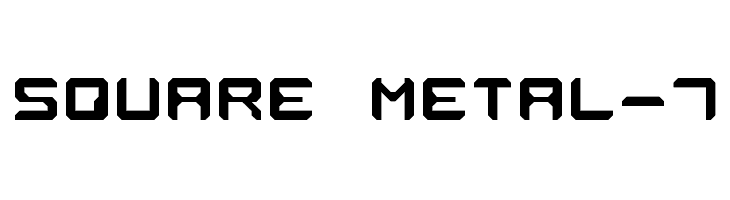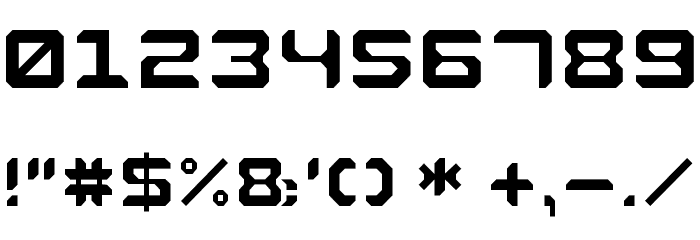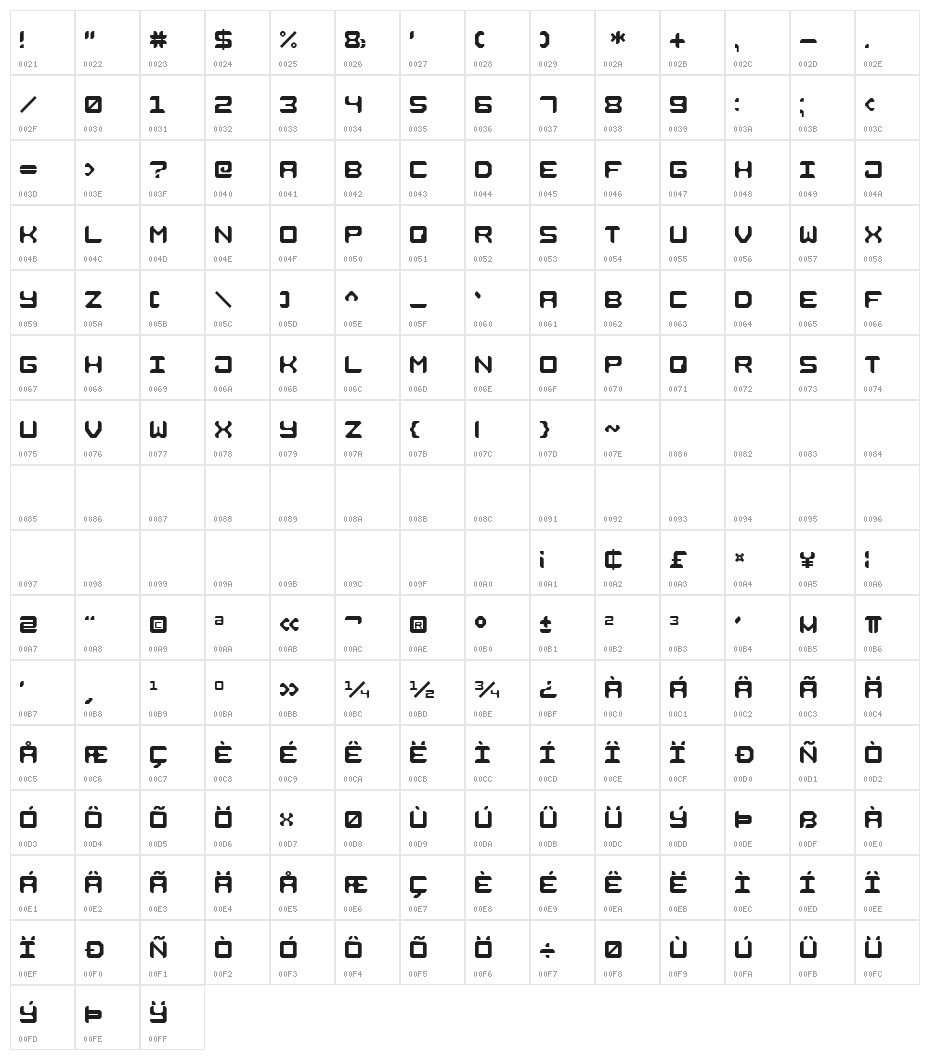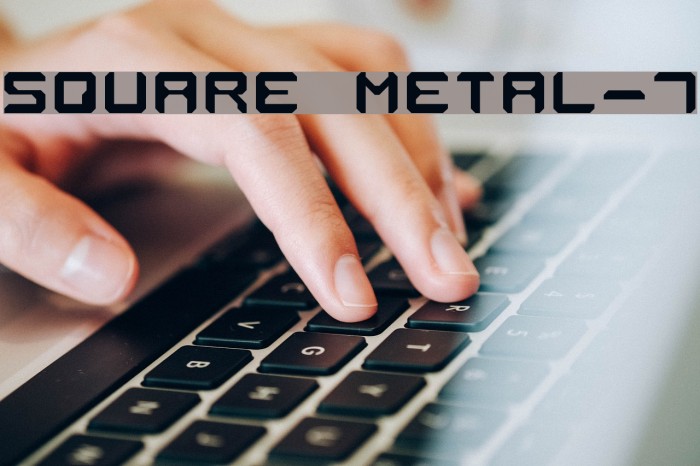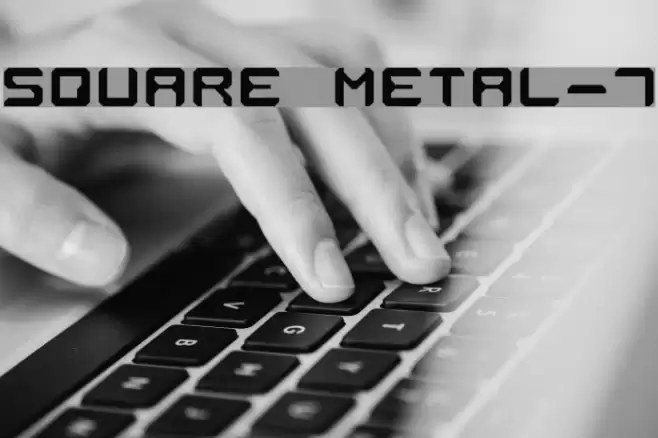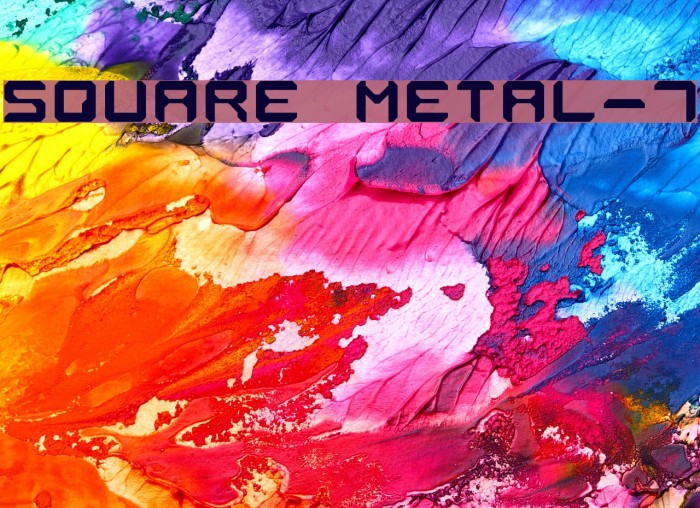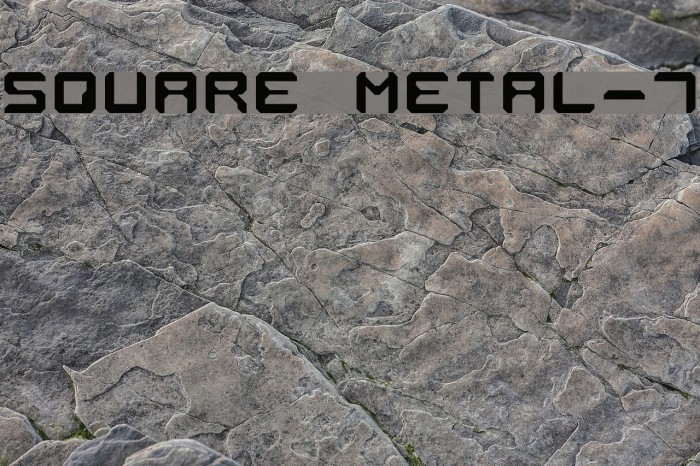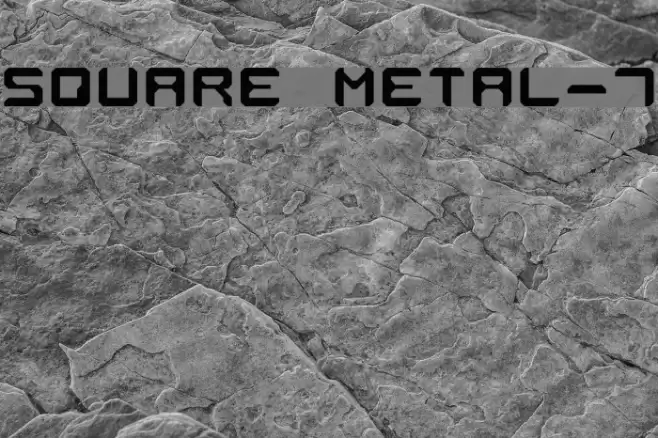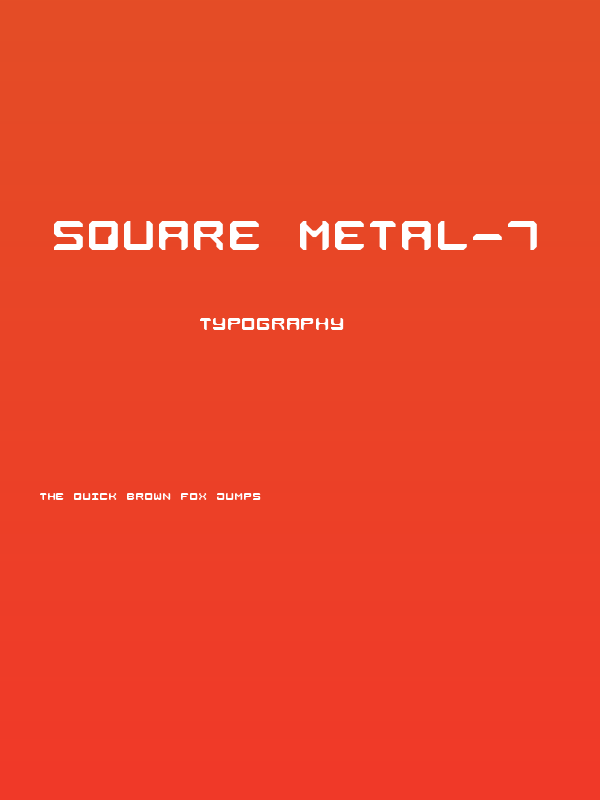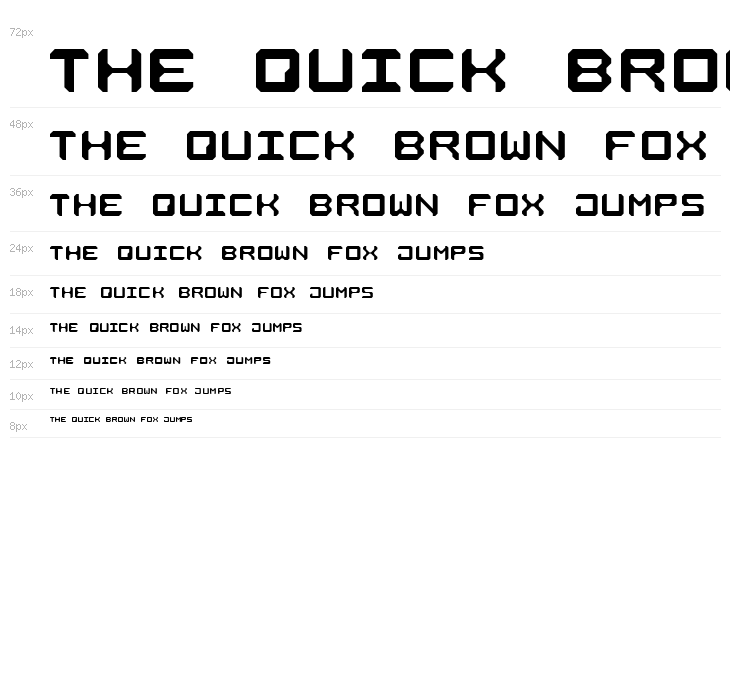
Square Metal-7 Font
Square Metal-7 Description
This font features a bold, geometric design with a distinctly modern and industrial feel. The characters are constructed with sharp angles and a blocky appearance, reminiscent of metal or machinery. The uppercase and lowercase letters maintain a consistent style, with uniform stroke widths and a strong presence. Numbers and special characters follow the same design principles, ensuring a cohesive look across all elements. The font's robust structure makes it suitable for impactful and attention-grabbing designs.
| Proposed Projects | Ideal for projects requiring a strong, industrial aesthetic, such as technology branding, video game titles, or futuristic posters. |